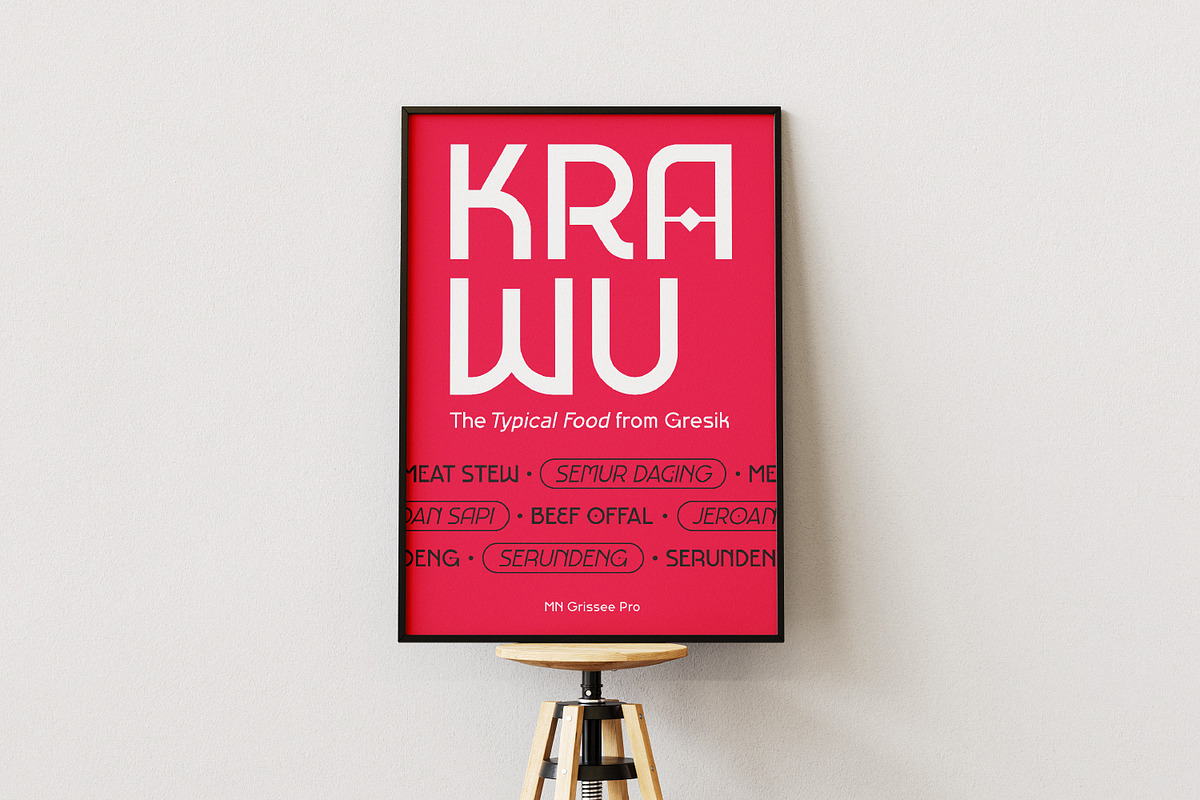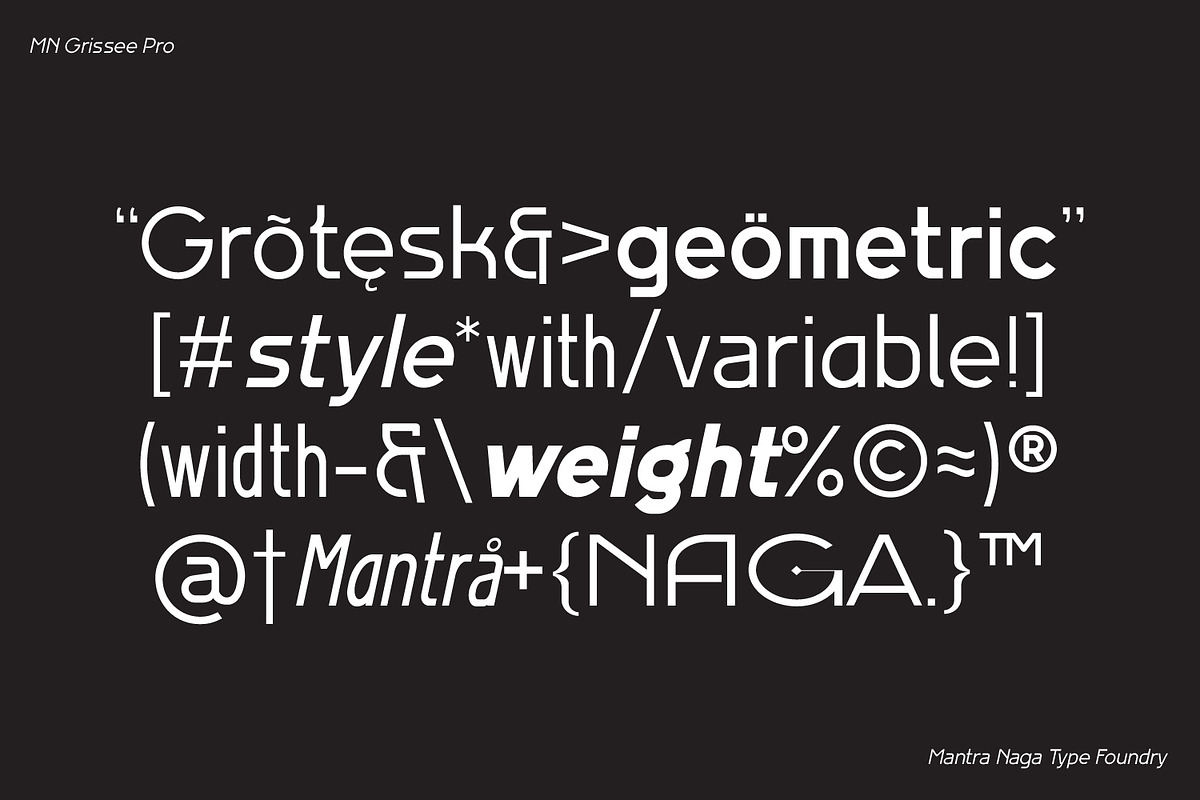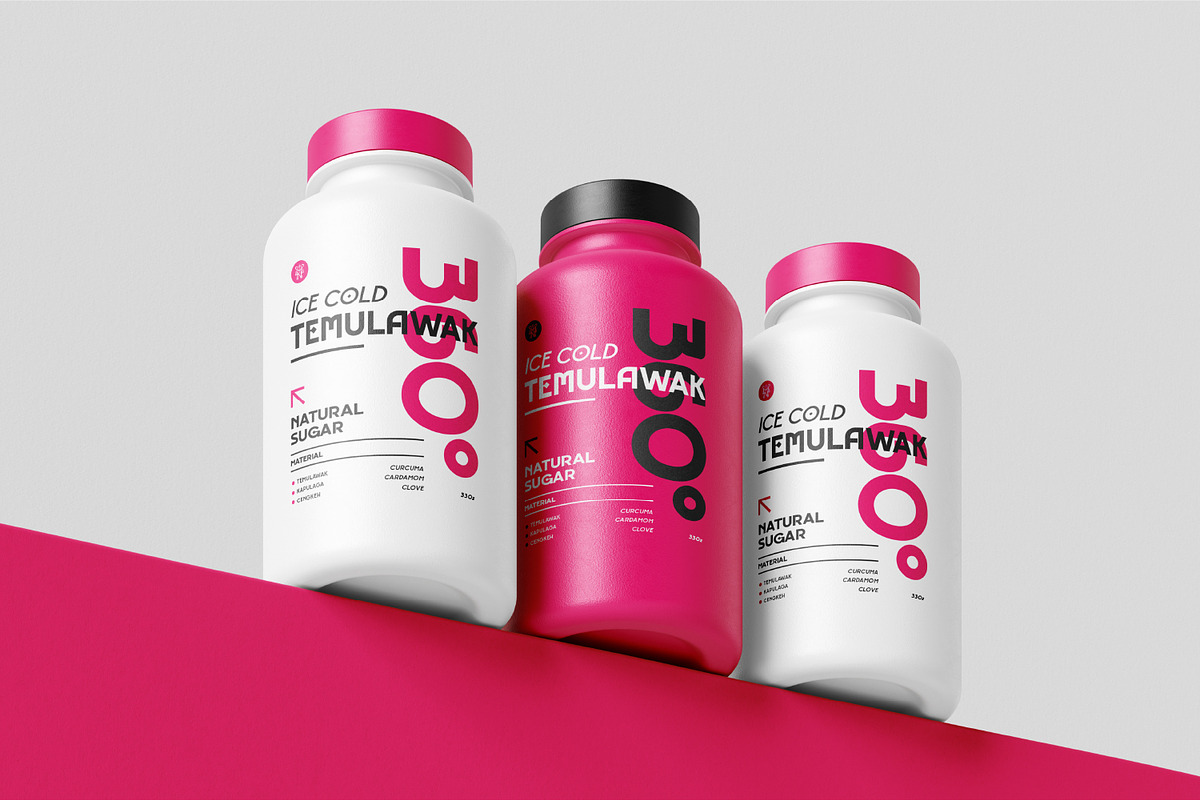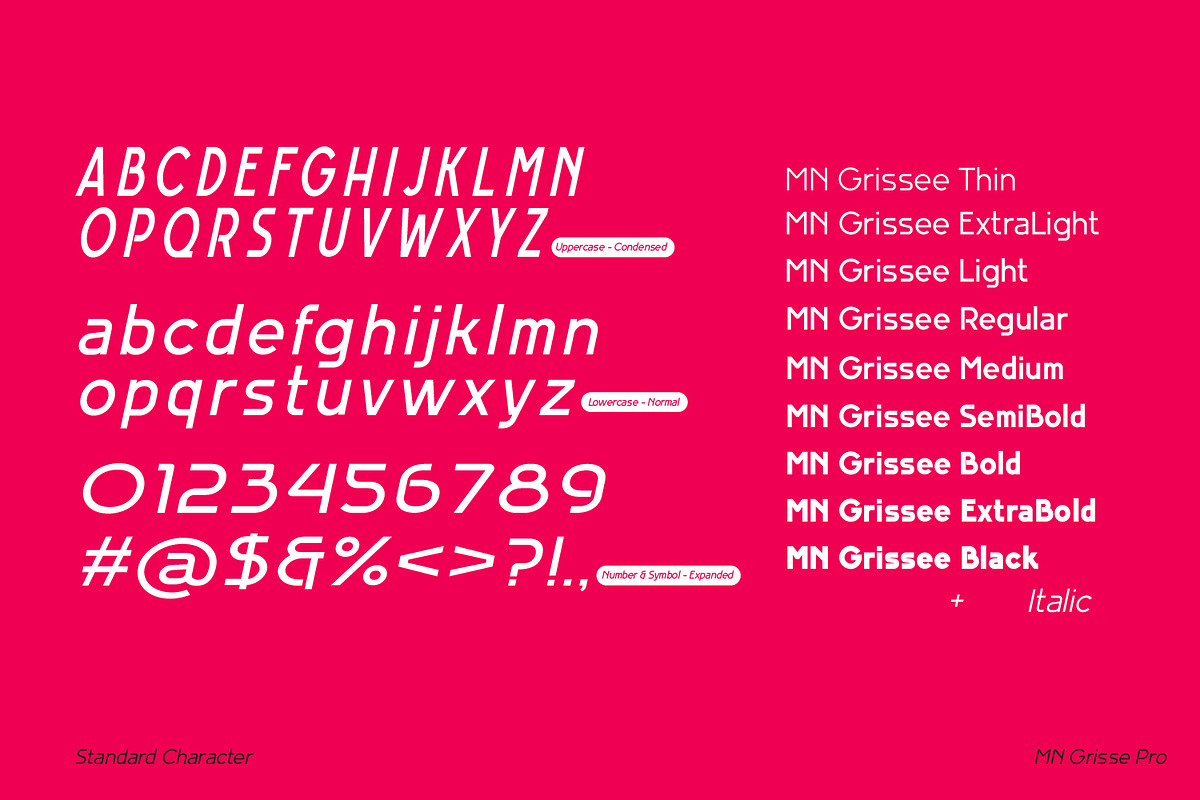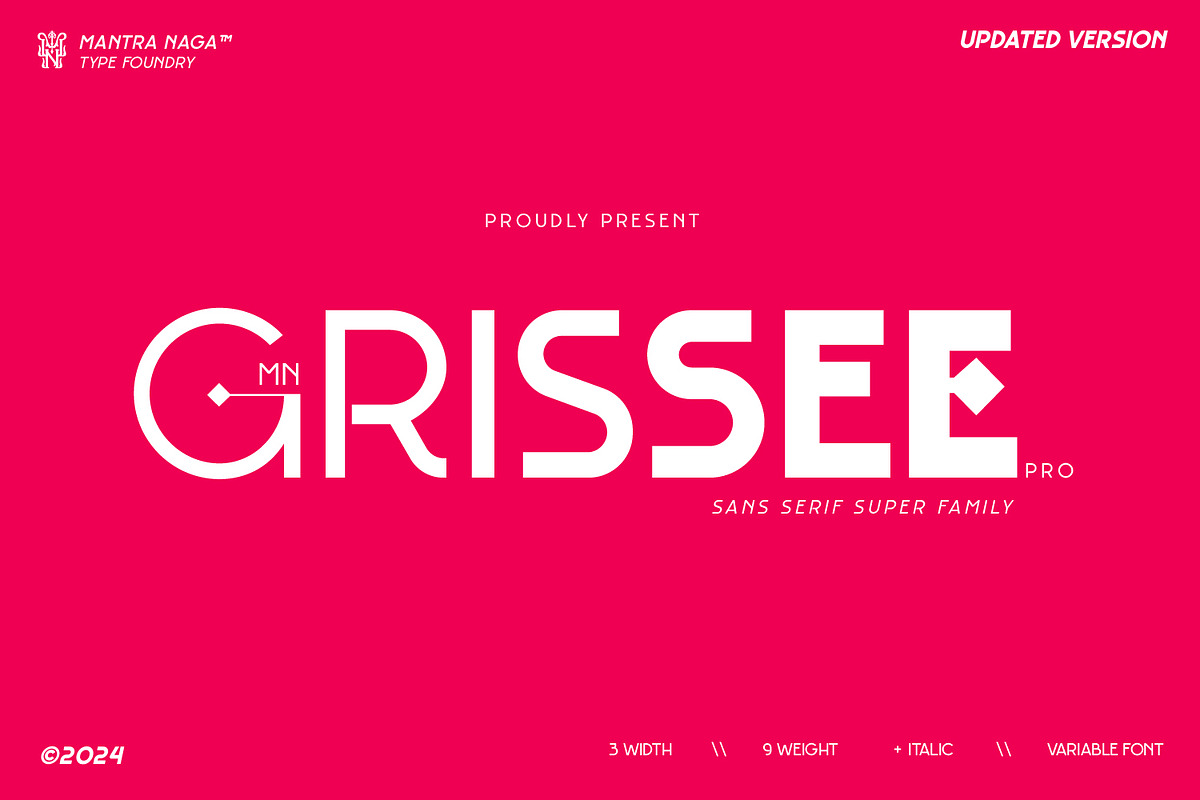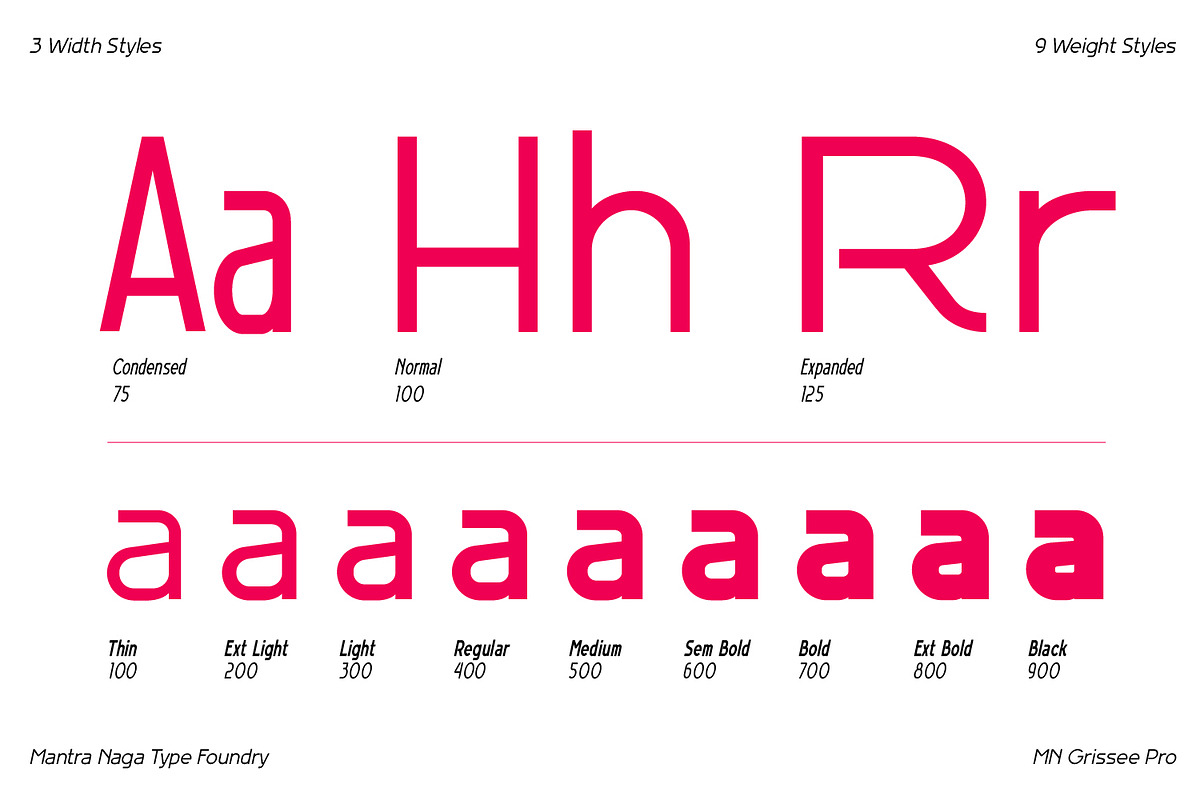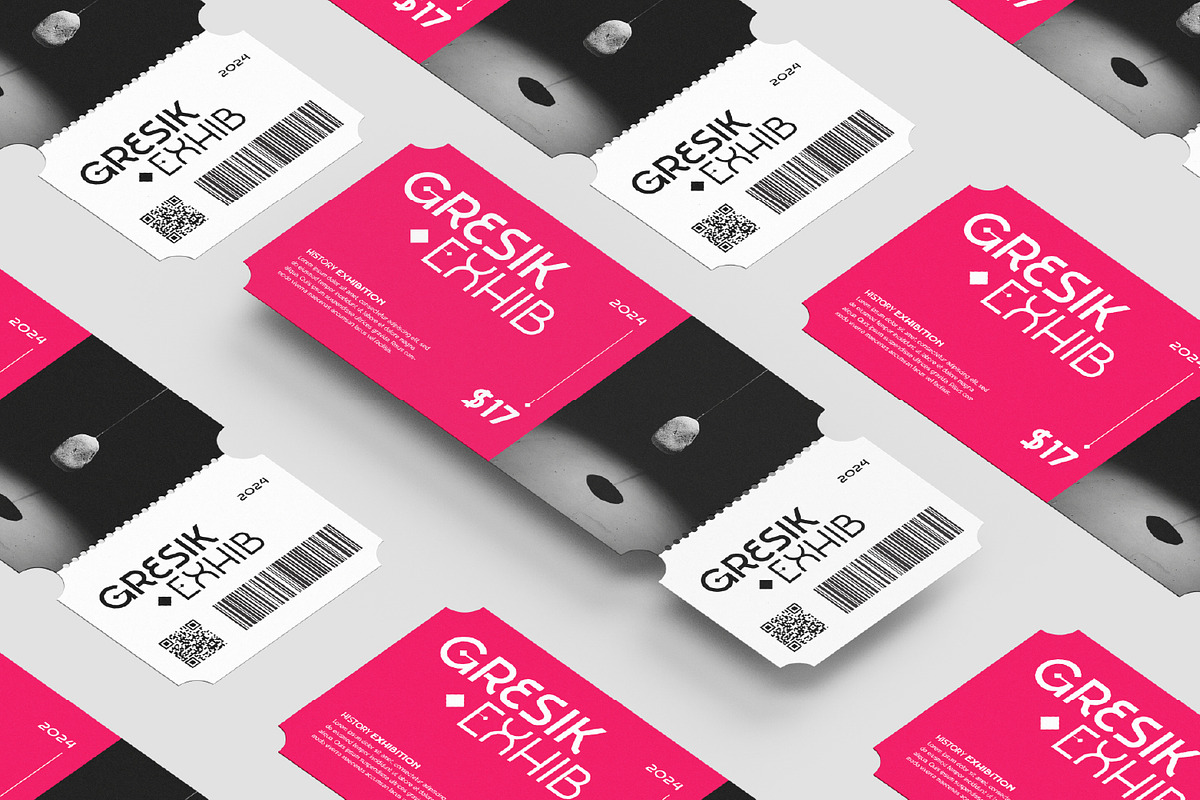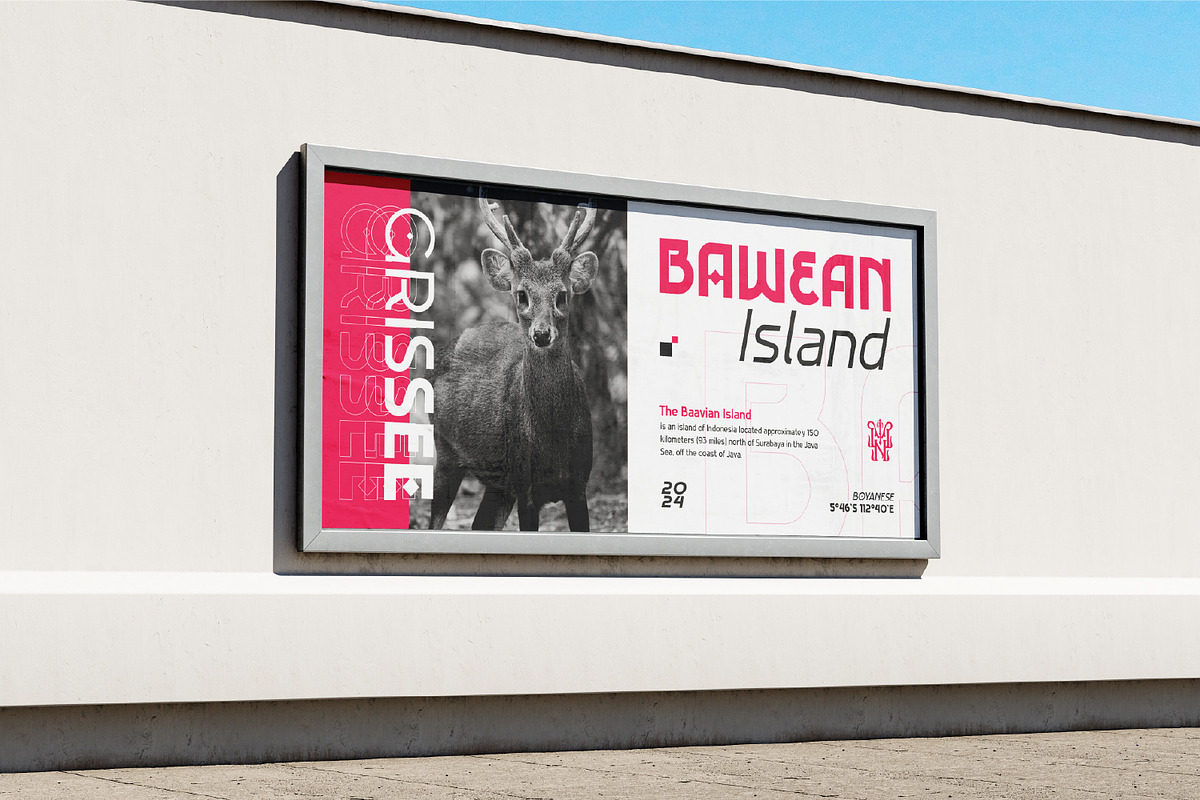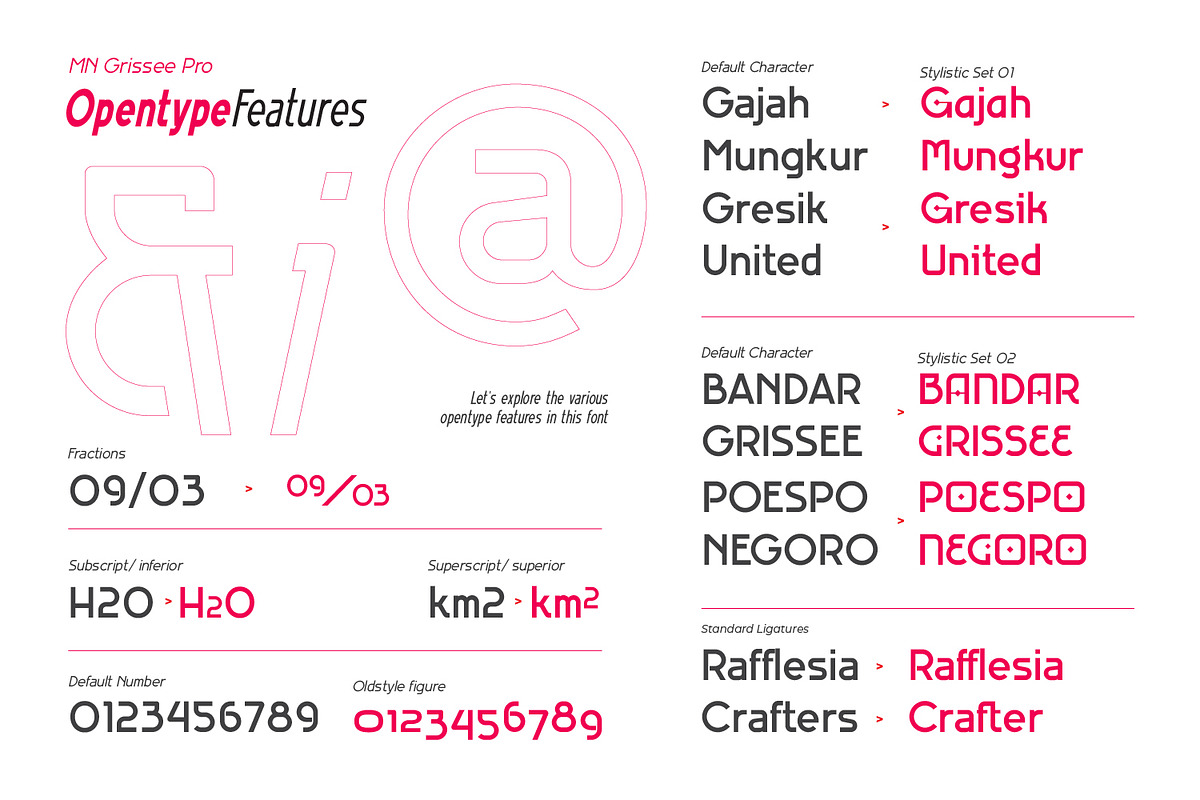
MN Grissee Pro - Variable Font
MN Grissee Pro could be the right sans-serif typeface for your project! It has a charming and distinctive character in every shape. This versatile font is suitable for a variety of projects, whether you're going for a classic, grotesque, or heritage design. You have plenty of options to choose from in terms of weight, width, and italics. Plus, it offers excellent readability, making it a great choice for headlines and sub-headlines. Its unique character and range of options make it a standout choice for any project.
The Story Behind MN Grissee Pro is inspired by the beautiful colonial architecture in the Gresik region of Indonesia. We've taken this influence and turned it into a modern design that appeals to today's market. Instead of using traditional serif fonts, we've chosen Sans Serif as the base for our font. This departure from the usual rigid and formal serif fonts aims to create a font that feels elegant and trendy while still including traditional elements. This is unique combination that makes MN Grissee Pro stand out and truly special.
Ideal for the following project styles Heritage, Vintage, Classic, European, Grotesk, Experimental, Scandinavian, Industrial, Rustic, Mythology
Features of MN Grissee Pro
- 461 Glyphs
- Variable font (54 font family)
- 2 Stylistic Alternates, Discretionary and Standard Ligature
- 3 Widths (Condensed, Normal, Expanded)
- 9 Weights (Thin, Extra Light, Light, Regular, Medium, Semibold, Bold, Extrabold, Black)
- 2 Styles (Regular & Italic)
- Multilingual support for 89 languages